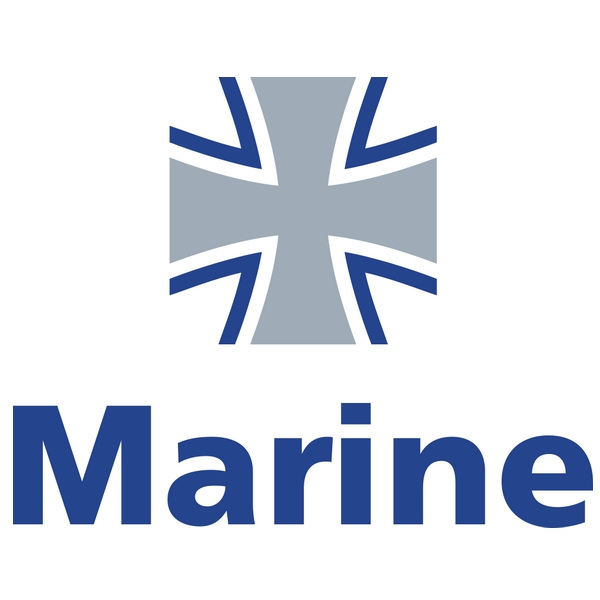
Deutsche Marine Font
Fonts in UseDeutsche Marine is the naval branch of the German armed forces, responsible for protecting German interests at sea. It operates a fleet of surface vessels, submarines, and aircraft for various missions, including search and rescue, maritime security, and peacekeeping operations.
The German Navy logo uses Neue Frutiger Black, a revised version of the Frutiger typeface designed by Adrian Frutiger in the 1970s, and later improved in 2009 by Akira Kobayashi. More details about the font can be found here.